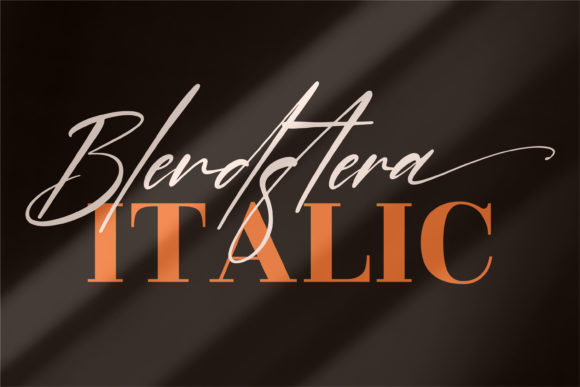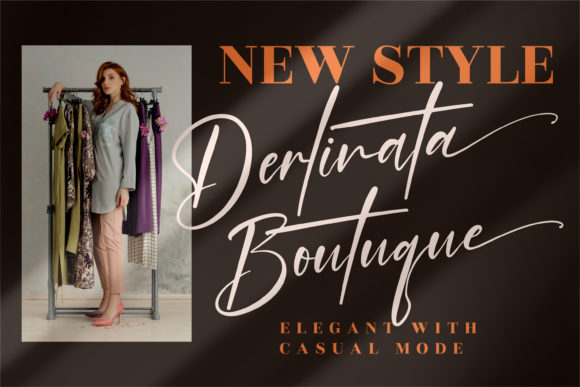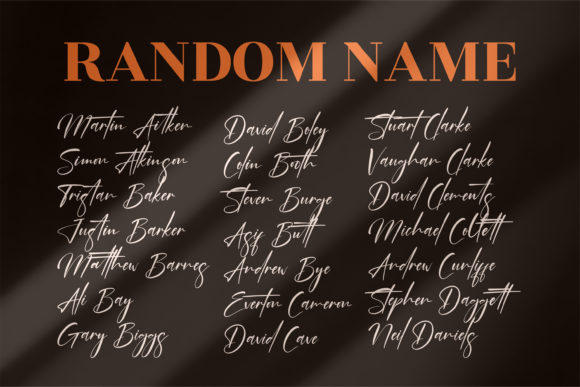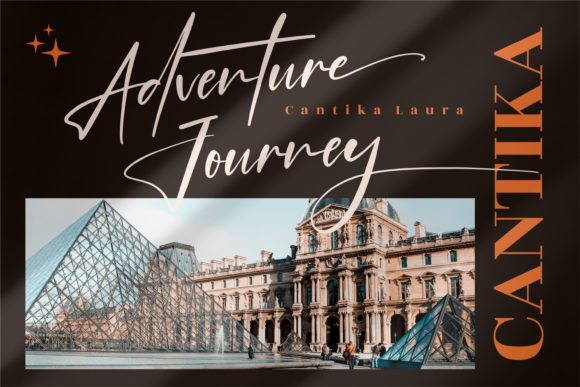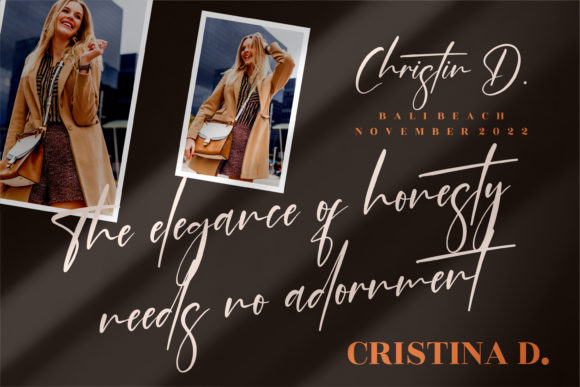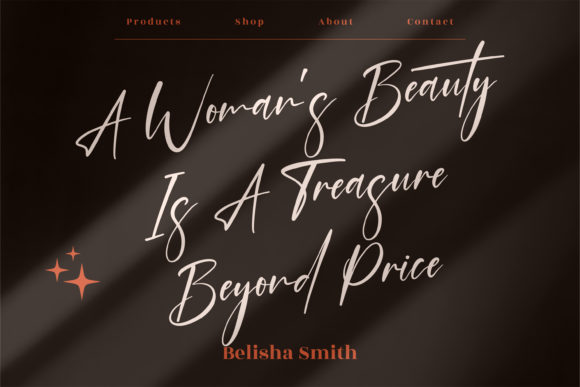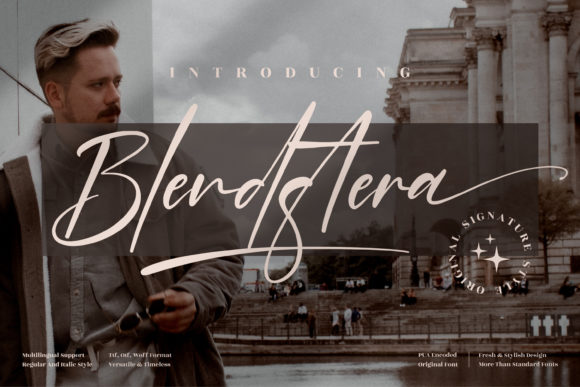
Introducing Blendstera Font: Elevate Your Designs with Elegance and Charm
In the world of typography, a font can make or break the aesthetic of a design project. For designers and crafters seeking to infuse their creations with a touch of sophistication and elegance, the Blendstera Font is an exceptional choice. This modern script font is meticulously crafted to bring charm and refinement to a wide array of creative endeavors, ensuring that each project stands out with an authentic and captivating look.
The Essence of Blendstera Font
Blendstera is not just a font; it’s an experience. It embodies the perfect blend of modernity and classic elegance, making it versatile for various design applications, from luxury branding and wedding invitations to digital marketing materials and craft projects. Each letter in the Blendstera Font is designed to convey a sense of grace and refinement, providing designers with the tools to create visually stunning and emotionally resonant content.
Key Features of Blendstera Font
• Modern Script Elegance: Blendstera boasts a contemporary script style that is both trendy and timeless, ensuring your designs are always on point.
• PUA Encoding: Being PUA (Private Use Area) encoded, Blendstera offers unparalleled flexibility. This feature allows easy access to all glyphs and swashes, empowering designers to experiment with a wide range of typographic variations and combinations.
• Ease of Use: The font’s user-friendly design means that you can seamlessly integrate it into your projects, regardless of your preferred design software.
• Versatility: Whether you’re working on a high-end brand campaign, a bespoke wedding invitation, or a DIY craft project, Blendstera adapts effortlessly, adding a touch of elegance to any design.
Applications of Blendstera Font
The versatility of Blendstera Font makes it suitable for a myriad of applications, including:
• Branding and Logo Design: Elevate your brand’s visual identity with a sophisticated and memorable logo.
• Wedding and Event Stationery: Add a touch of luxury and romance to your wedding invitations, menus, and event programs.
• Digital Marketing: Enhance your website, social media graphics, and advertising materials with a distinctive and elegant typography.
• Crafting and DIY Projects: Perfect for crafters, Blendstera can be used in handmade cards, journaling, and other paper crafts, adding a professional and beautiful finish.
Why Choose Blendstera Font?
In a sea of fonts, Blendstera stands out for its unique blend of elegance, modernity, and usability. Here are a few reasons why designers and crafters are gravitating towards this exceptional font:
• Unique Aesthetic: Blendstera offers a distinctive look that can help your designs stand out in a crowded marketplace.
• Time-Saving: With its PUA encoding and extensive glyph library, Blendstera streamlines the design process, saving you time and effort.
• Cross-Platform Compatibility: The font is designed to work seamlessly across various software and platforms, ensuring consistency in your designs.
Blendstera Font is more than just a typeface; it’s a design companion that can elevate your creative projects to new heights of elegance and sophistication. Whether you’re a professional designer or a crafting enthusiast, Blendstera offers the perfect blend of style, versatility, and ease of use. By incorporating Blendstera into your design toolkit, you’ll be well on your way to creating visually stunning and memorable projects that leave a lasting impression.
Discover the transformative power of Blendstera Font in your designs. Embrace the elegance, charm, and limitless creative possibilities it offers, and watch your projects come to life in ways you never thought possible.